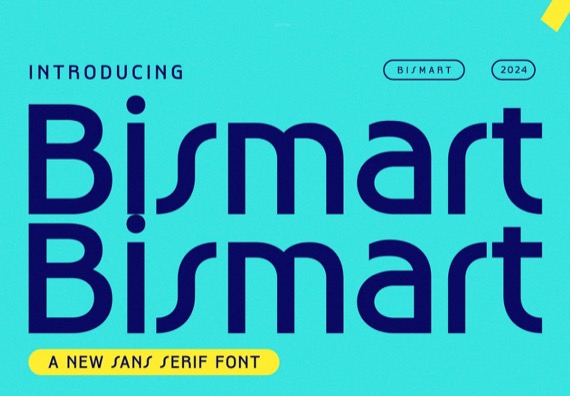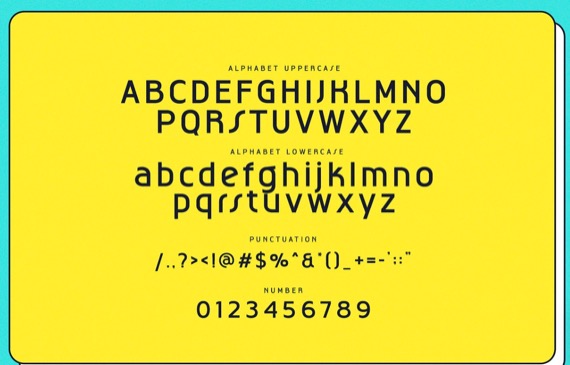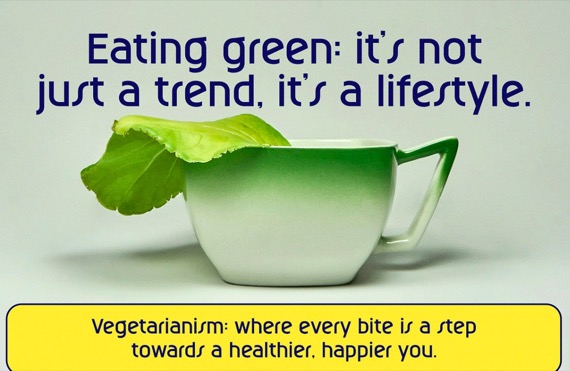
Bismart is an elegant and classy Display Sans Serif Font that was created by with glyph variations like ligatures & alternates. Bismart is a modern and simple font, best used as a display for headings, logos, branding, magazines, product packaging and invitations. Thank you.
Bismart Display Sans Serif Font